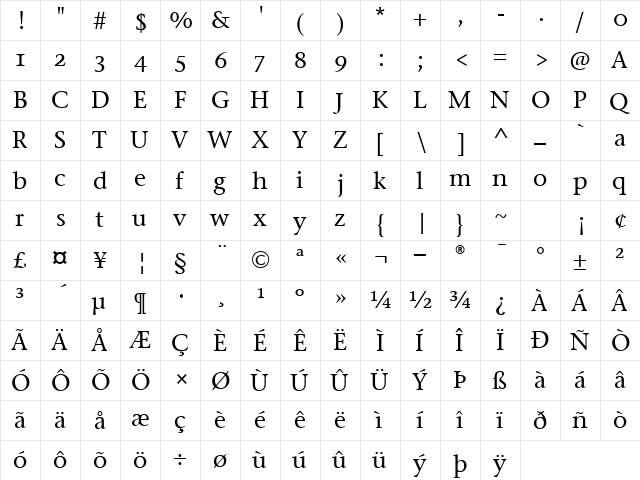
Stone Serif OS ITC TT Medium Font Preview
Stone Serif OS ITC TT Medium
Design Context for Stone Serif OS ITC TT Typeface
Stone Serif OS ITC TT brings classic typographic sensibility to the table — its serifs and measured letterforms reflect centuries of print heritage.
Pro Tip: Use Stone Serif OS ITC TT for editorial body copy and considered headline work. Pair with a neutral sans for UI elements or captions to create a classic hierarchy.